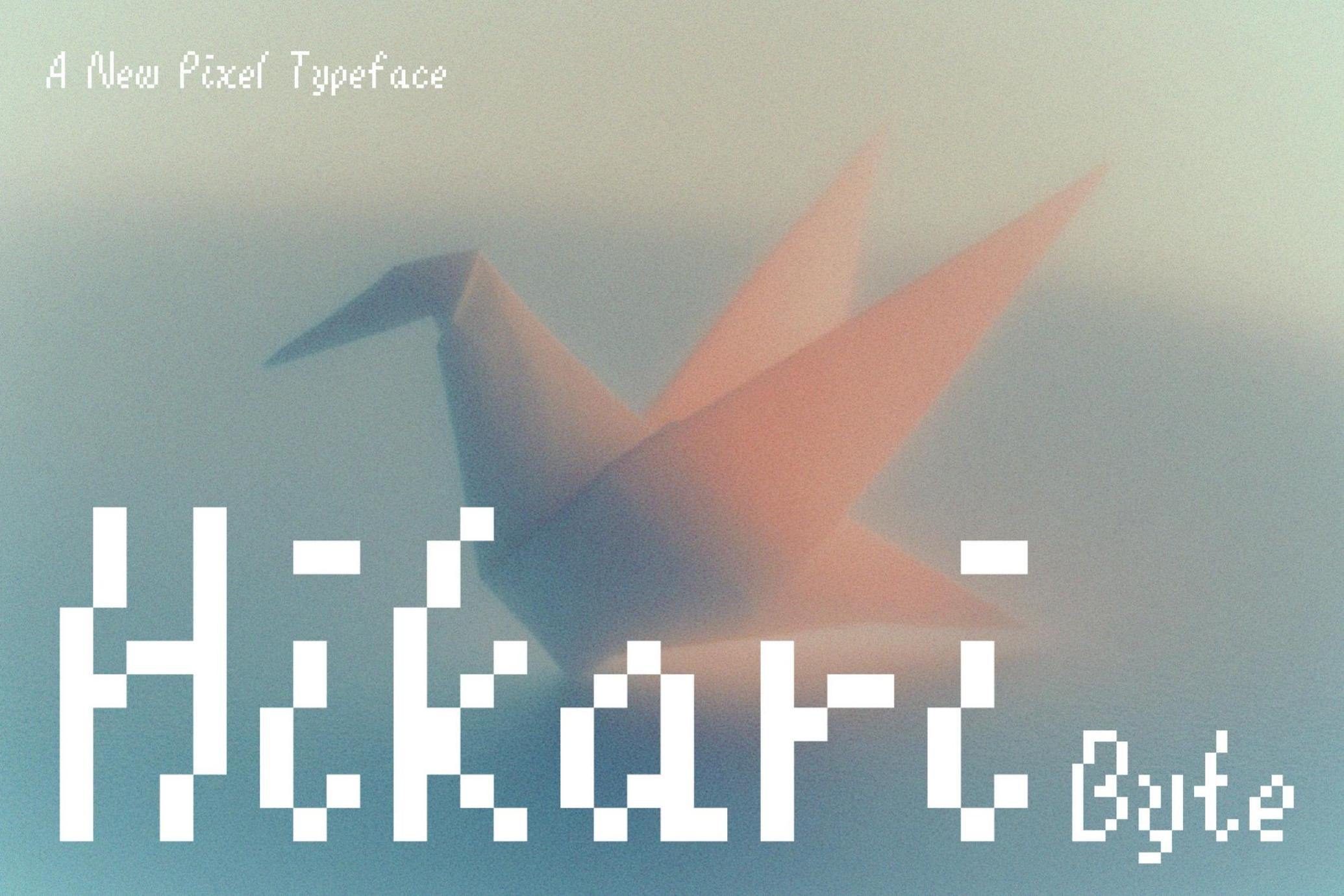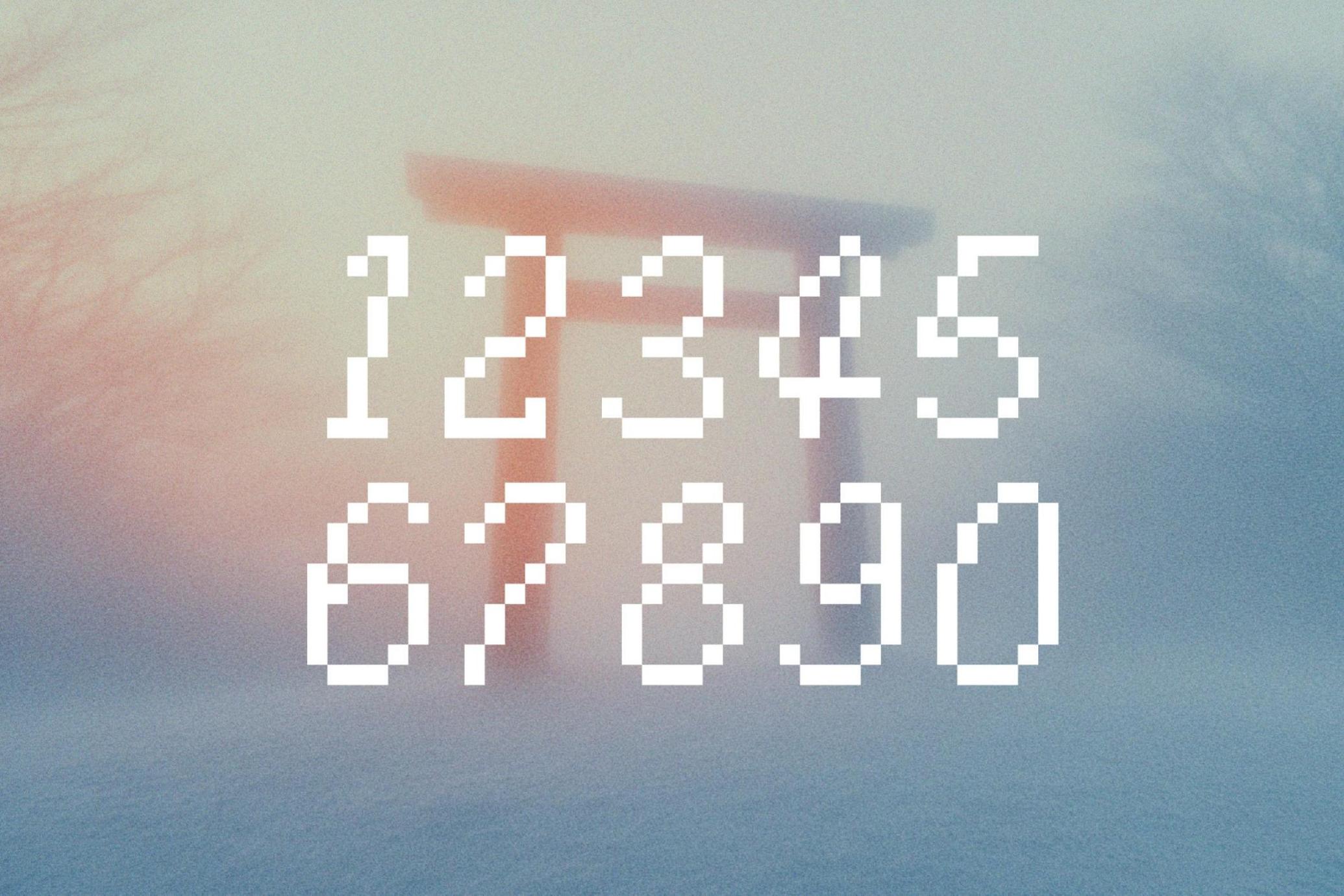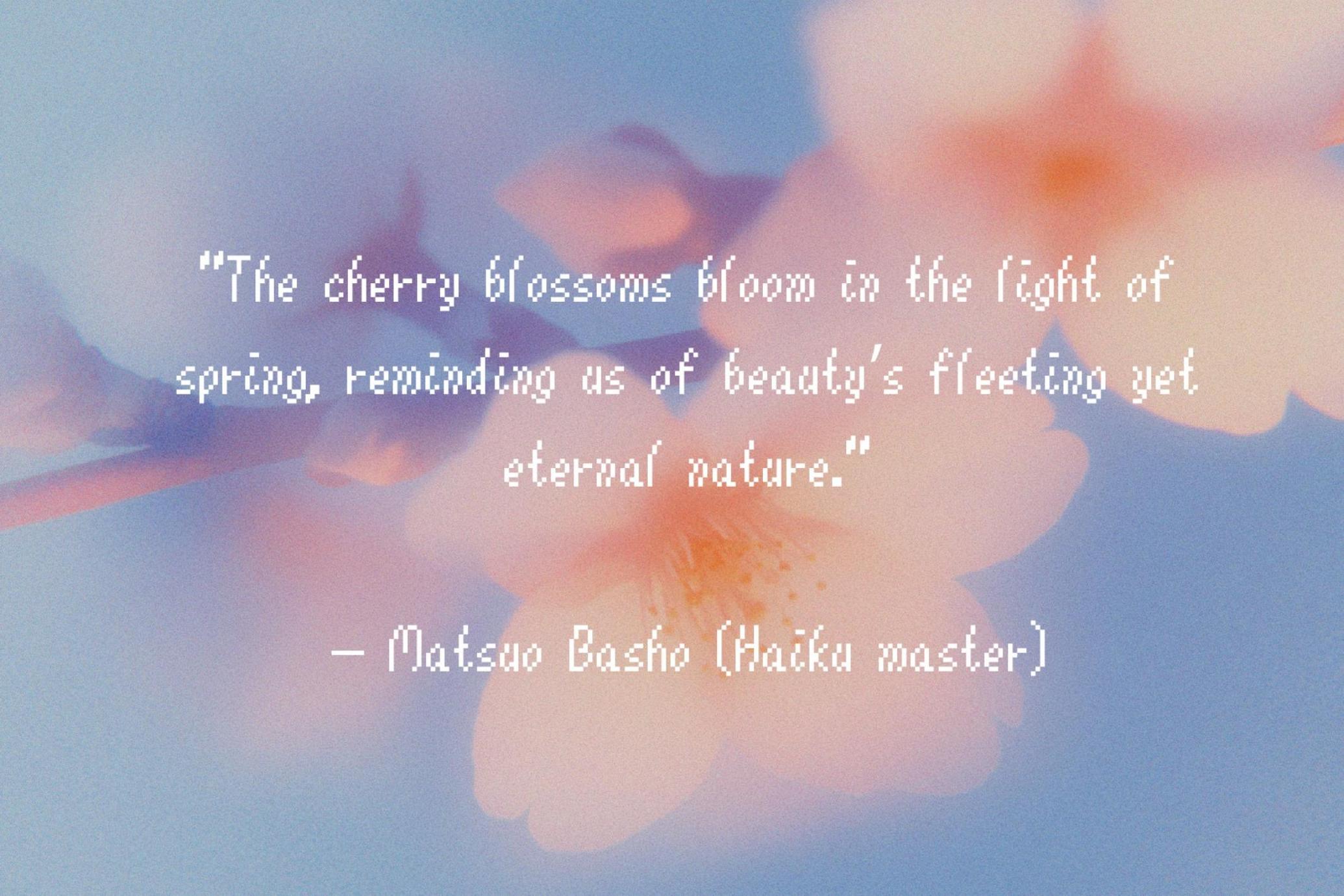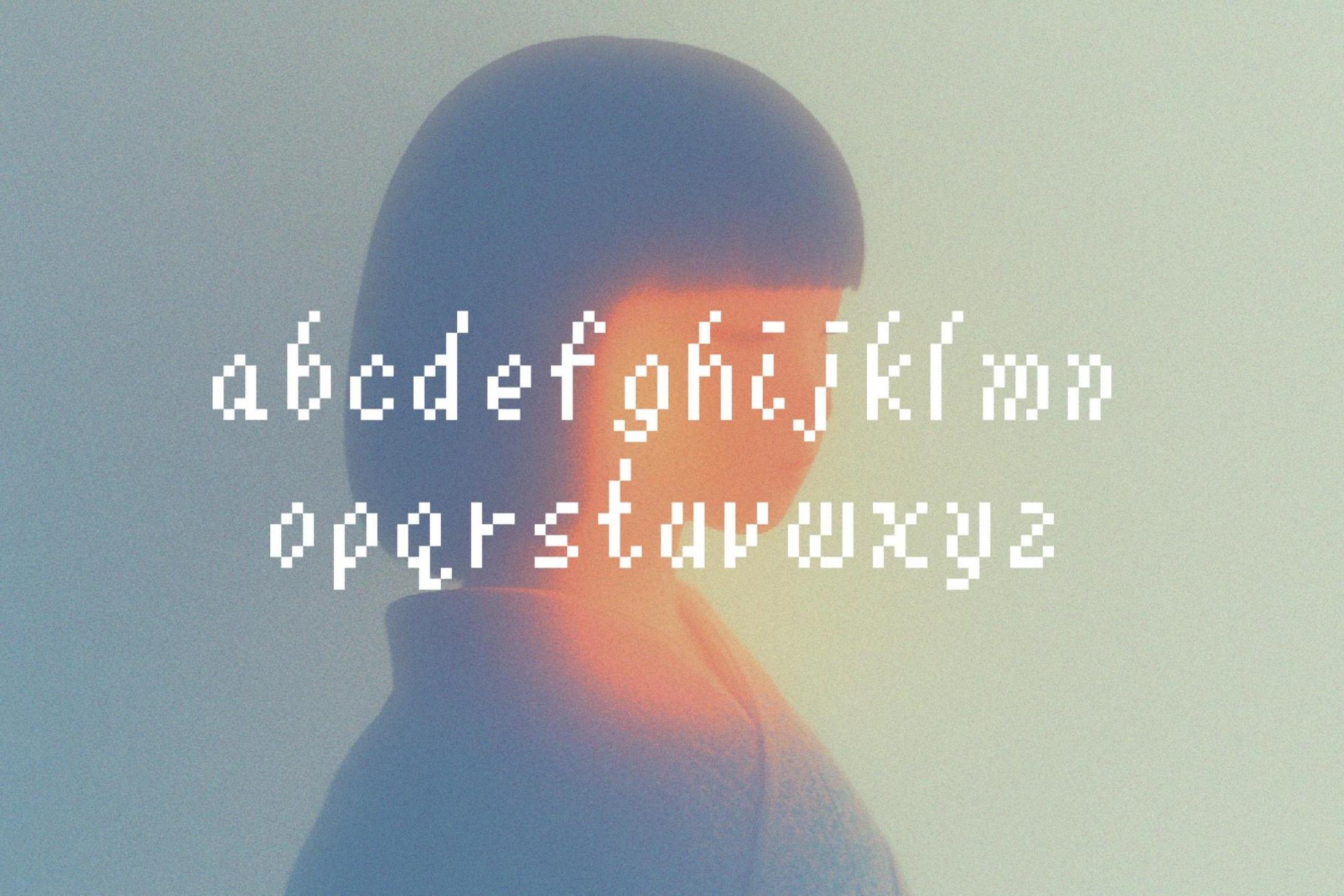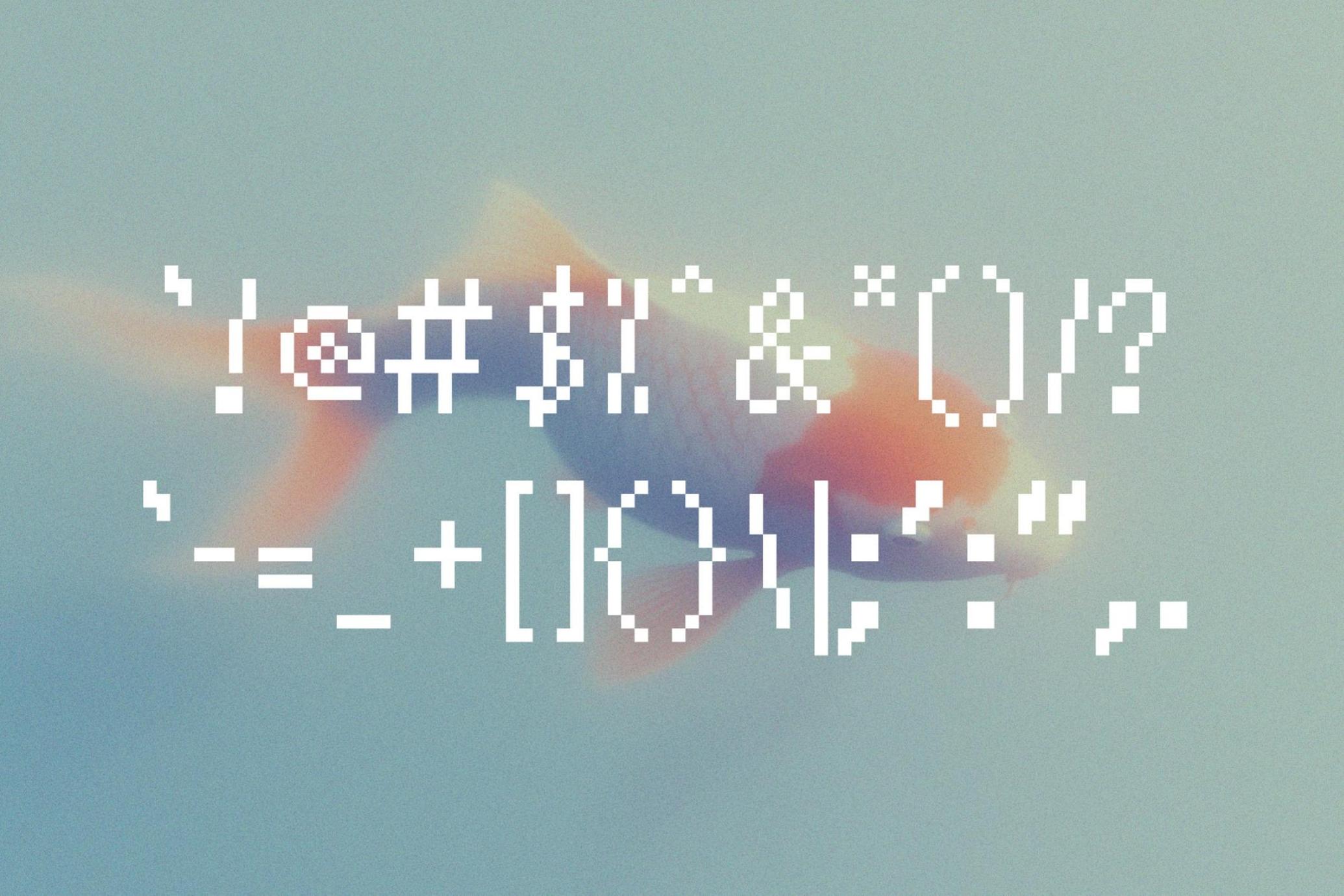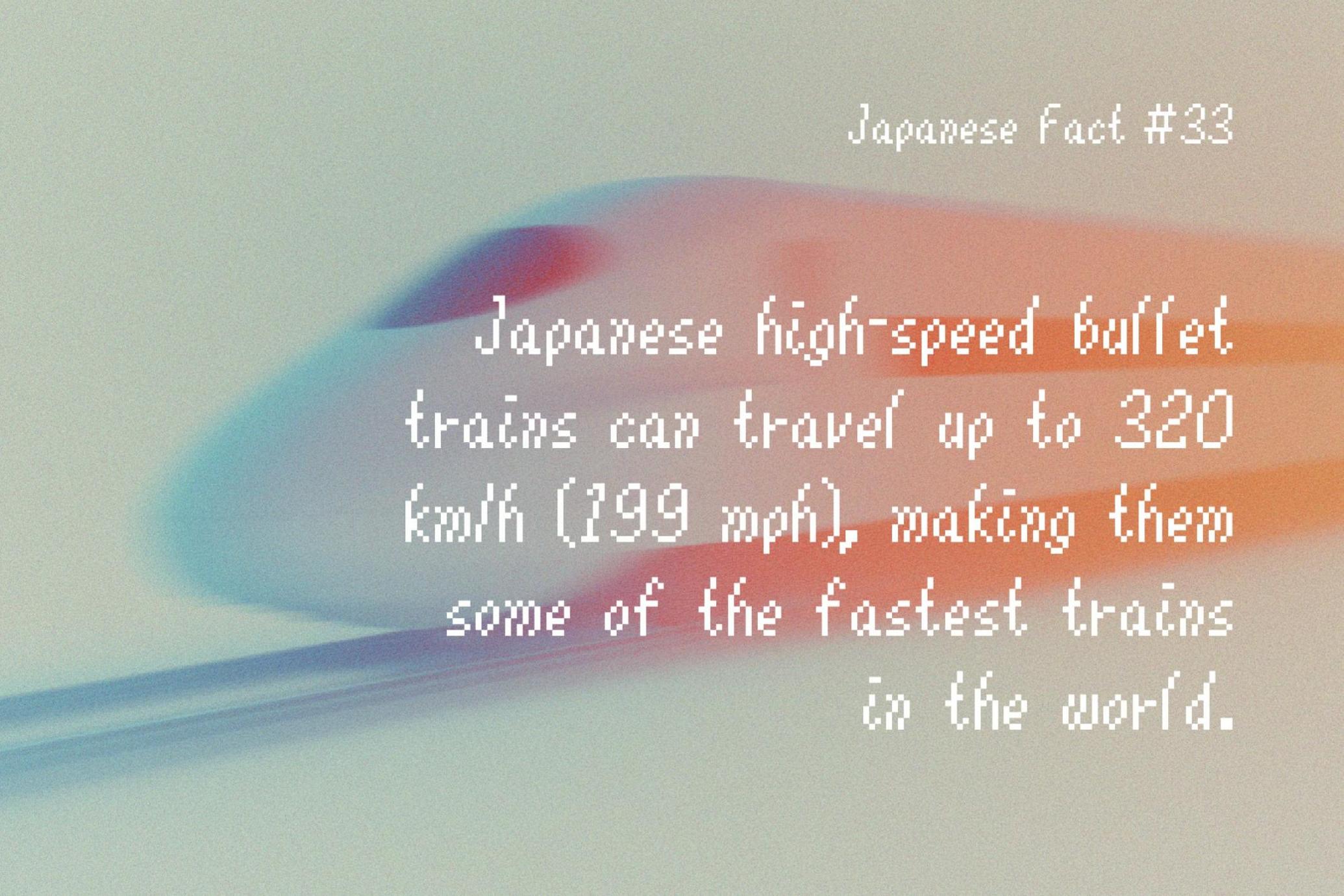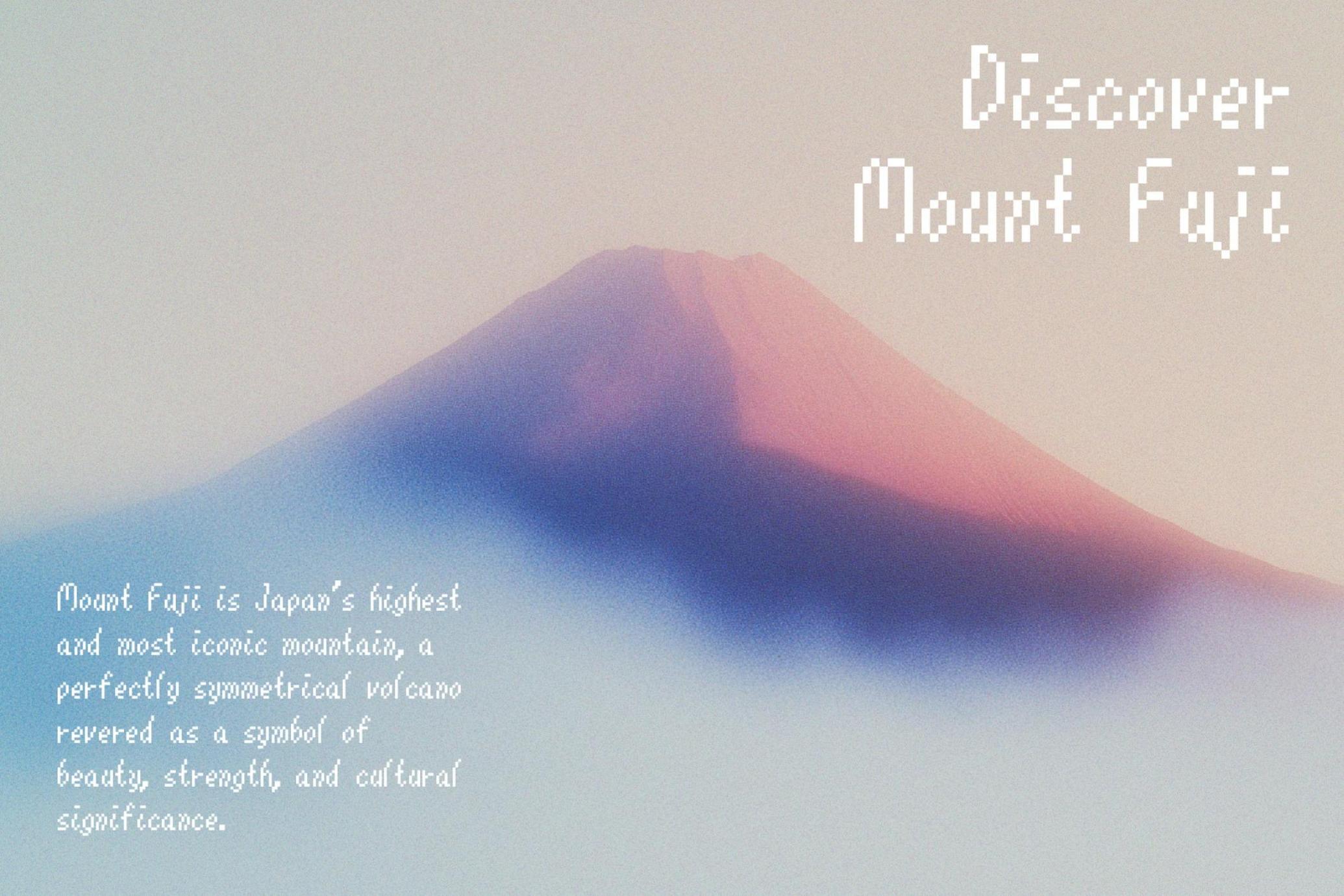
Hikari Byte - Japanese Inspired Pixel Font
Step into a world of elegance and precision with Hikari Byte, a stunning minimal pixel font inspired by the timeless beauty of Japanese culture. Designed to capture the harmony of simplicity and sophistication, this typeface combines clean pixel artistry with subtle nods to traditional Japanese aesthetics.
Whether you're working on retro games, digital interfaces, branding, or anime-inspired designs, Hikari Byte brings a unique blend of modern minimalism and cultural flair to every project. Its crisp lines and pixel-perfect construction make it versatile yet impactful, ideal for creators seeking a refined, tech-meets-tradition vibe.